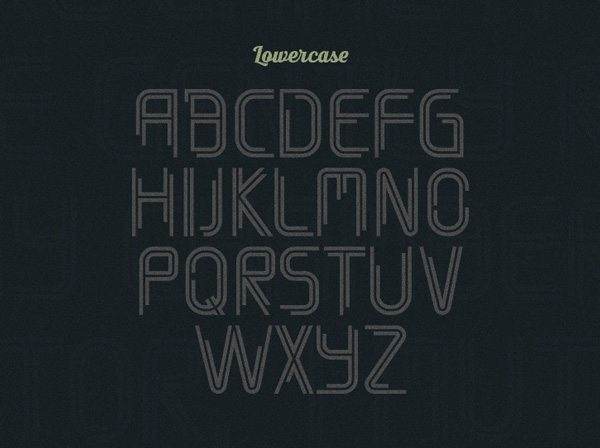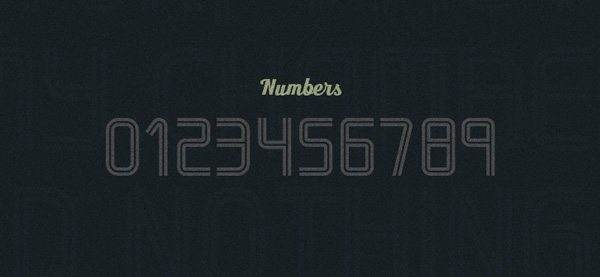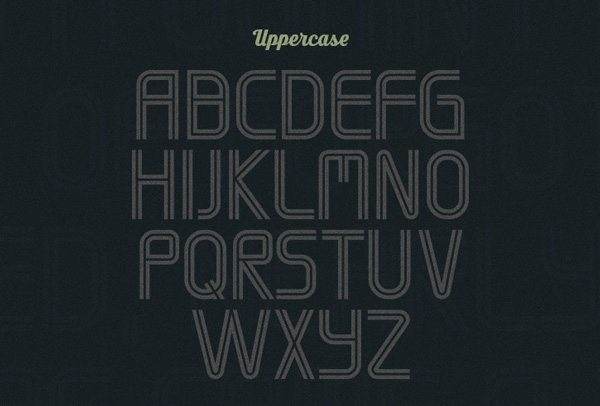
Font Timber is a free font I made that’s very versatile as you can easily combine the letters with minimal effort in Illustrator to achieve great typographic effects. The lines are perfectly aligned to be connected to each other. Uppercase and lowercase also feature different letters.Feel free to use the font for personal/commercial projects. designed by Mehmet Reha Tugcu.